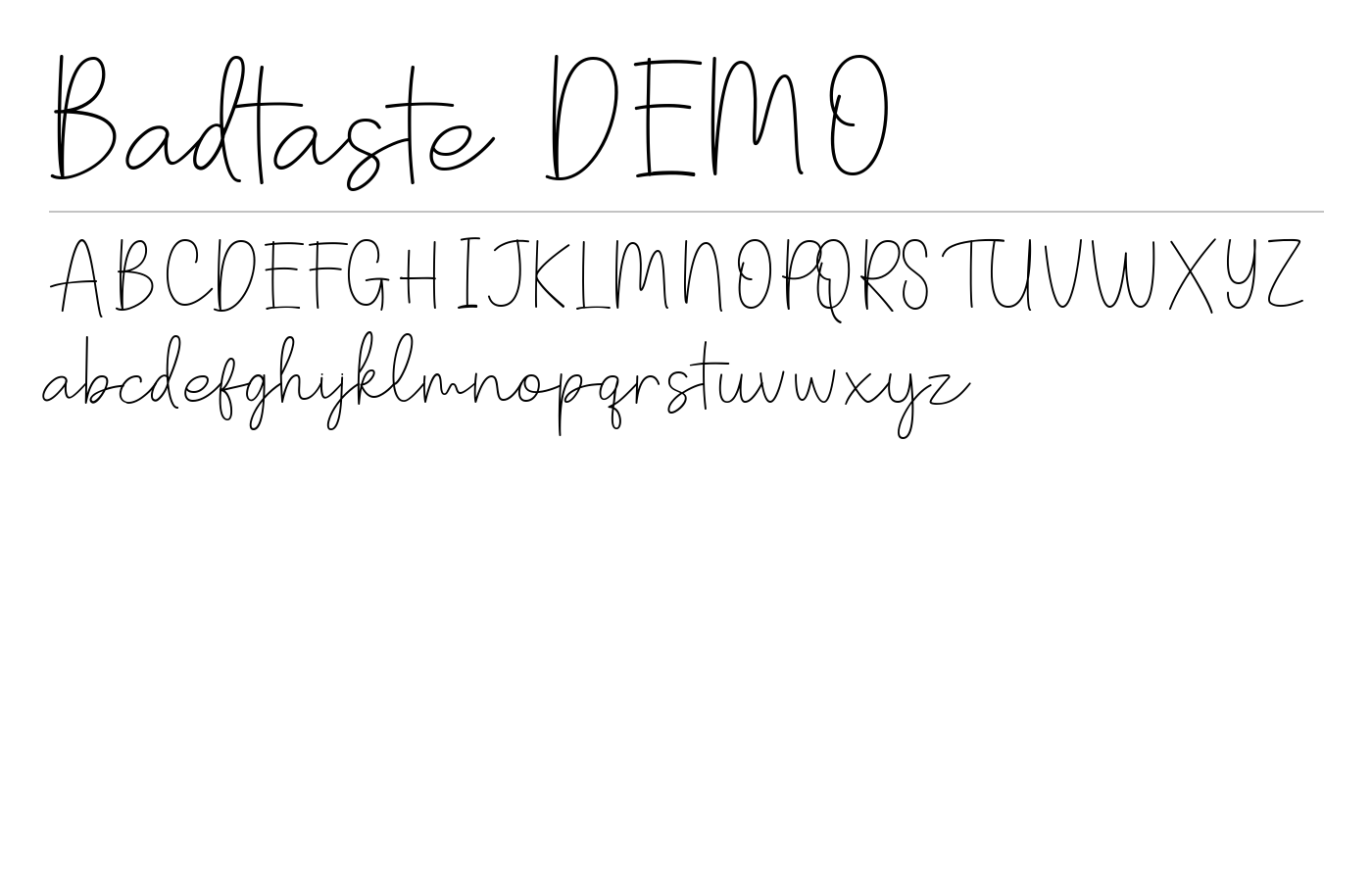
Badtaste DEMO is a playful, handwritten sans serif font characterized by its light weight and tall, narrow letterforms that give it a casual yet elegant feel. Its simple, flowing strokes and clear structure make it ideal for creative projects, informal branding, and personal invitations where a friendly, approachable mood is desired. This font works well for headlines and logos that seek a modern, relaxed, and artistic vibe.
Badtaste DEMO Font
About Badtaste DEMO Font